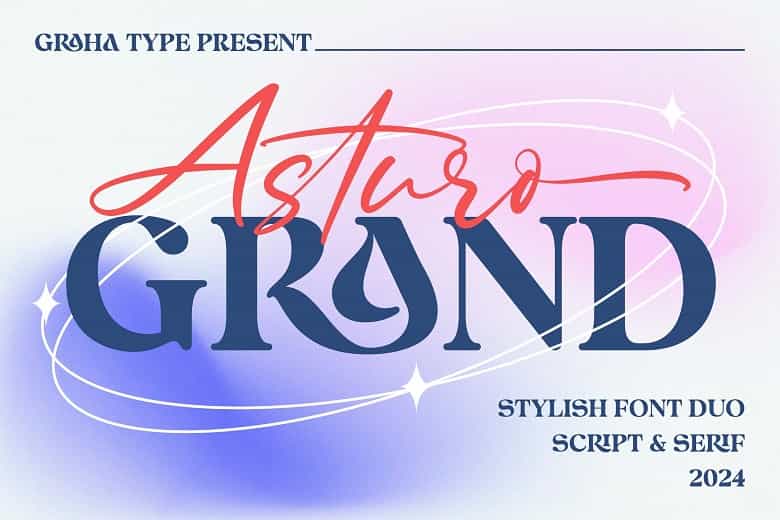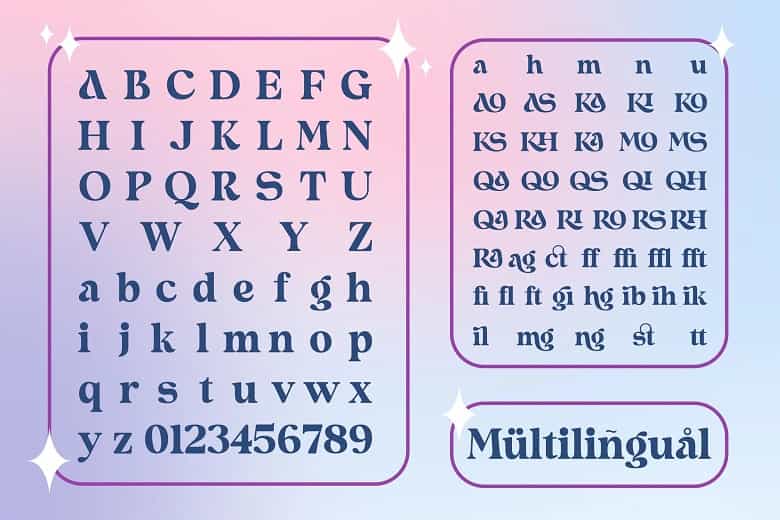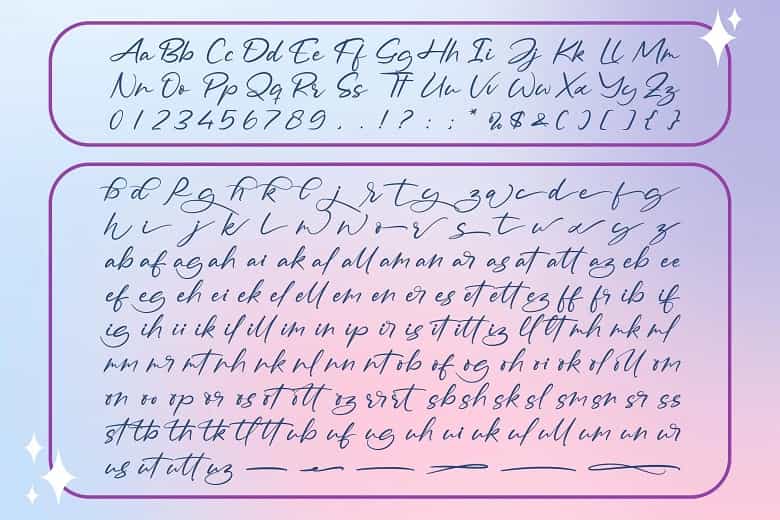
Asturo Grand can be described as a script and serif typefaces bundle which is suitable for a multitude of design projects. It’s suitable for posters, magazines, logos, merchandise, social media, and branding. It assists enhance visual communication and enhance branding in different design solutions.